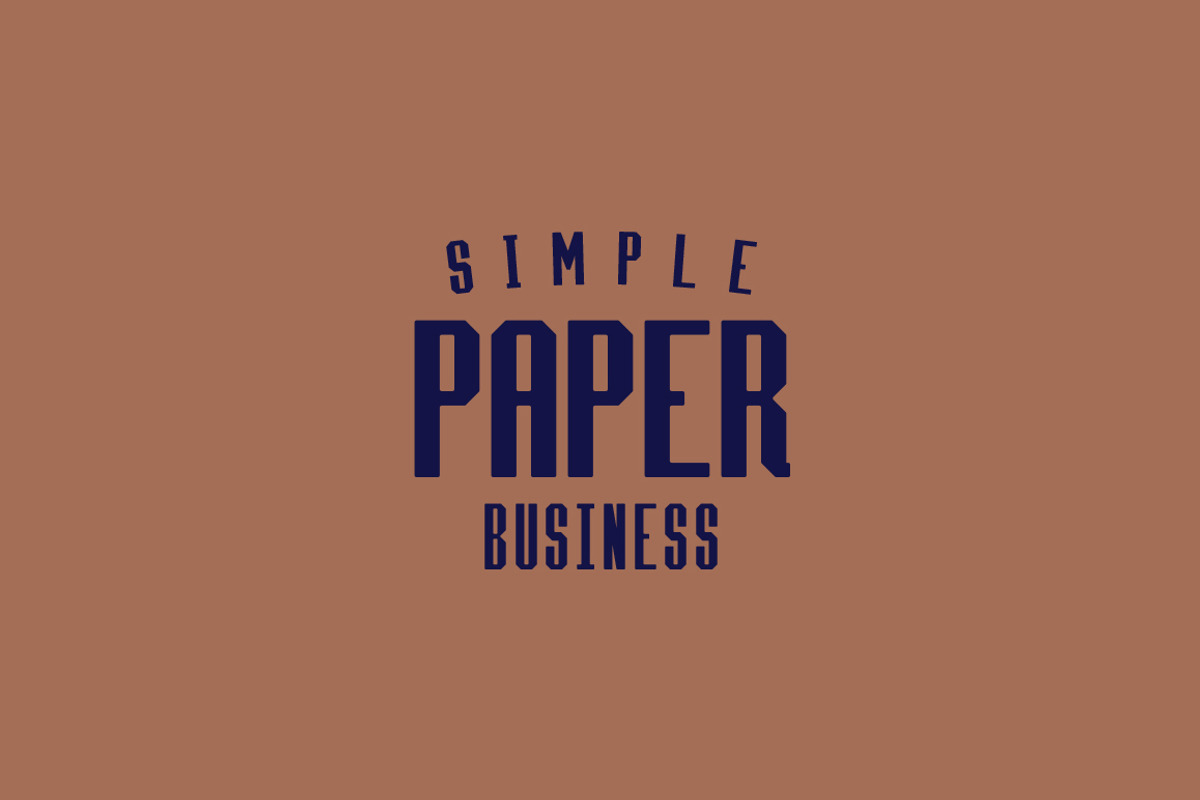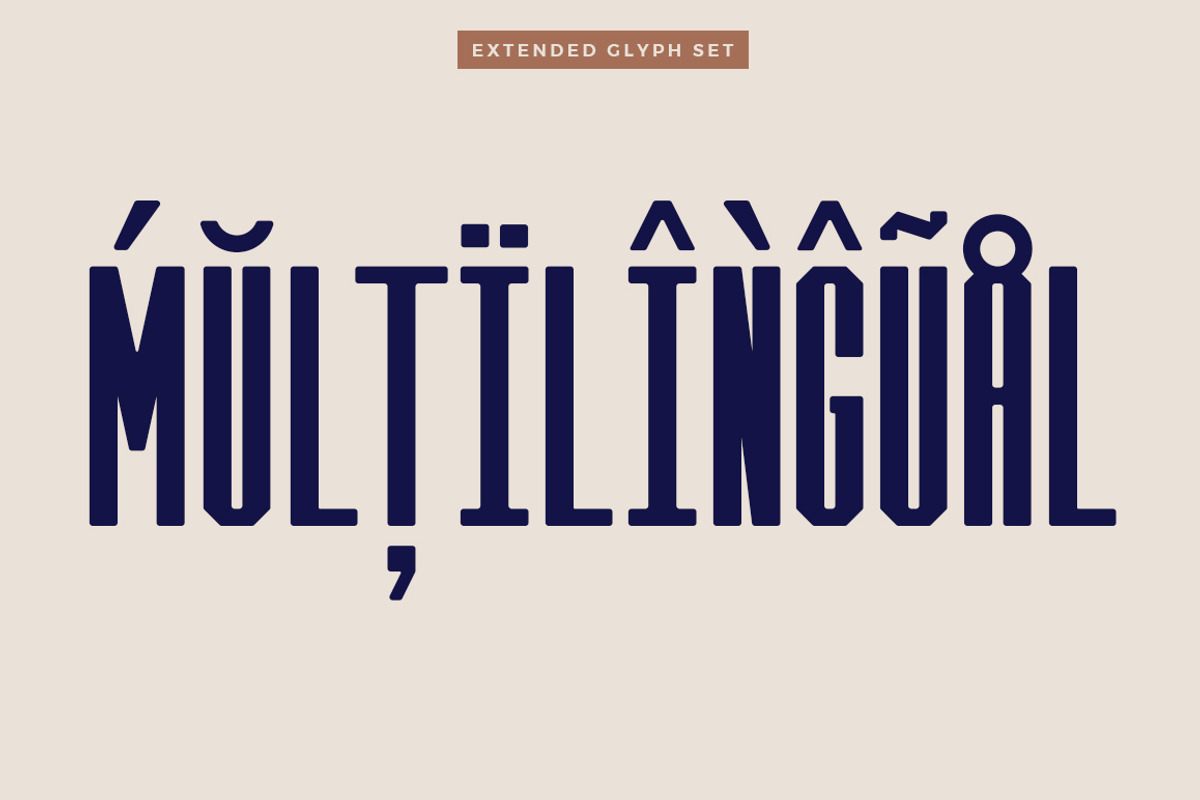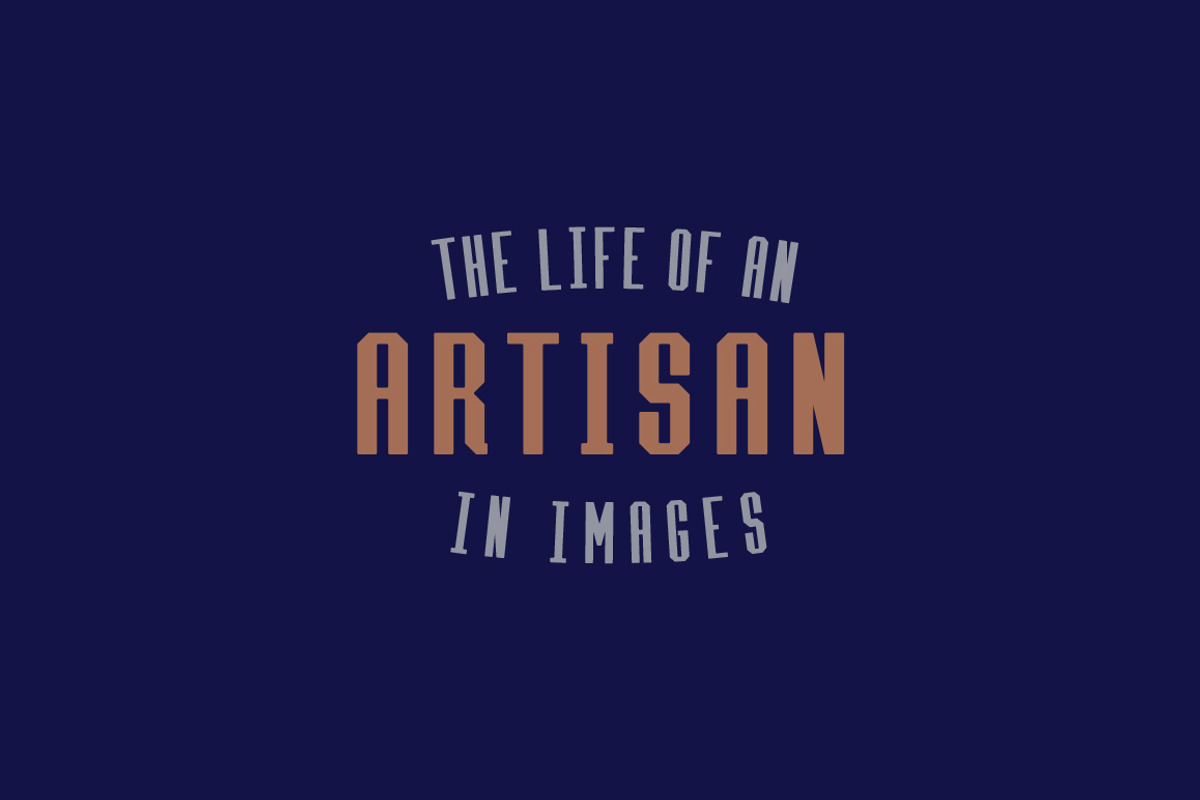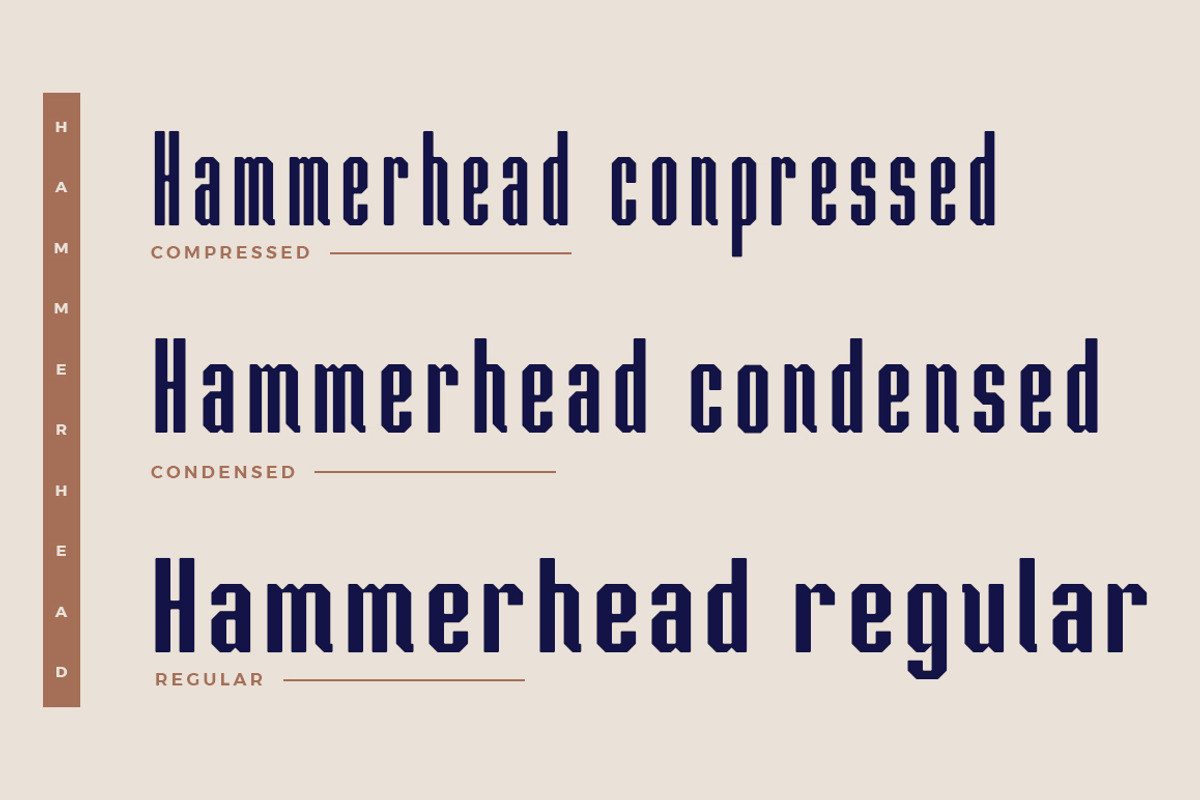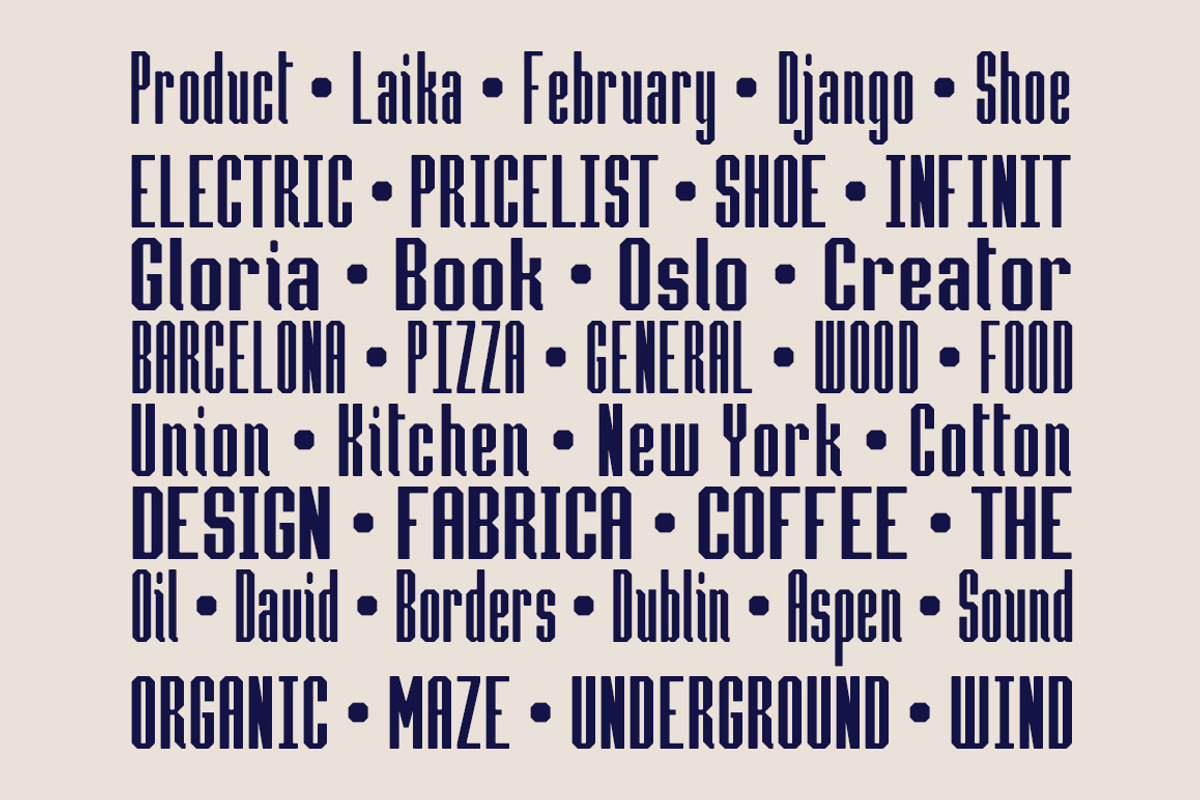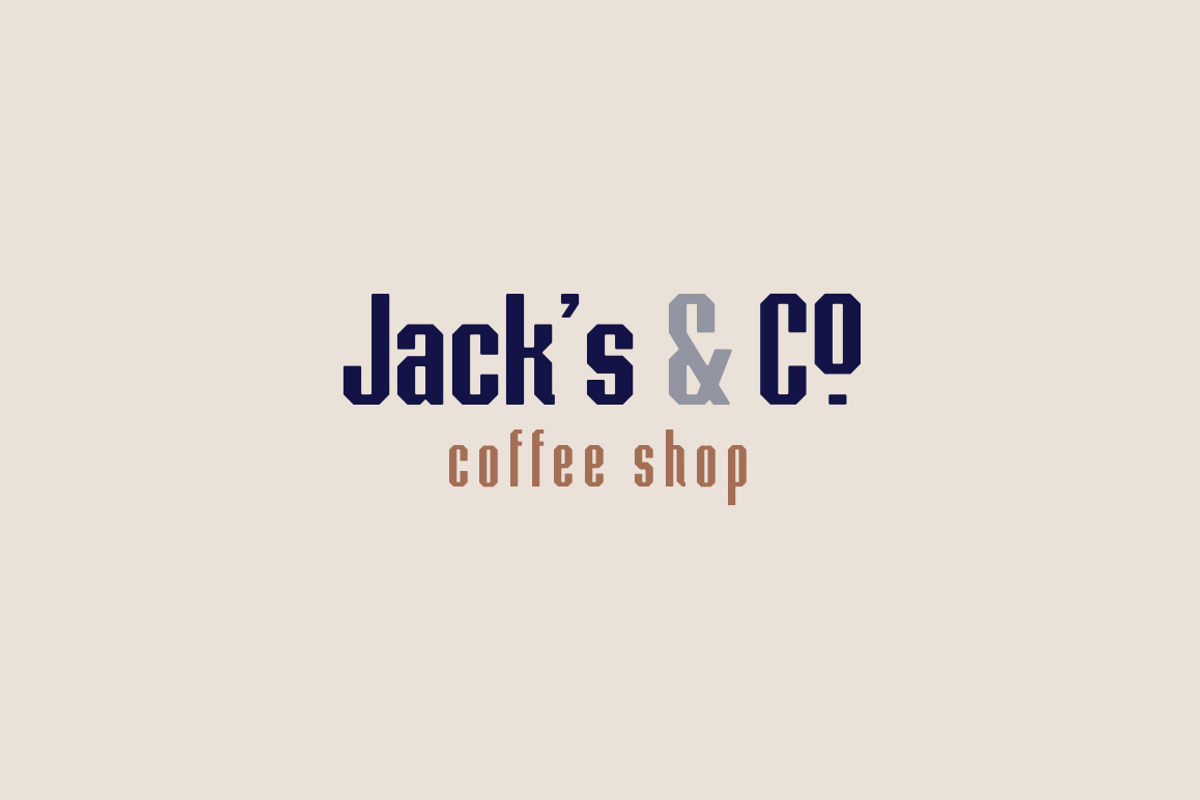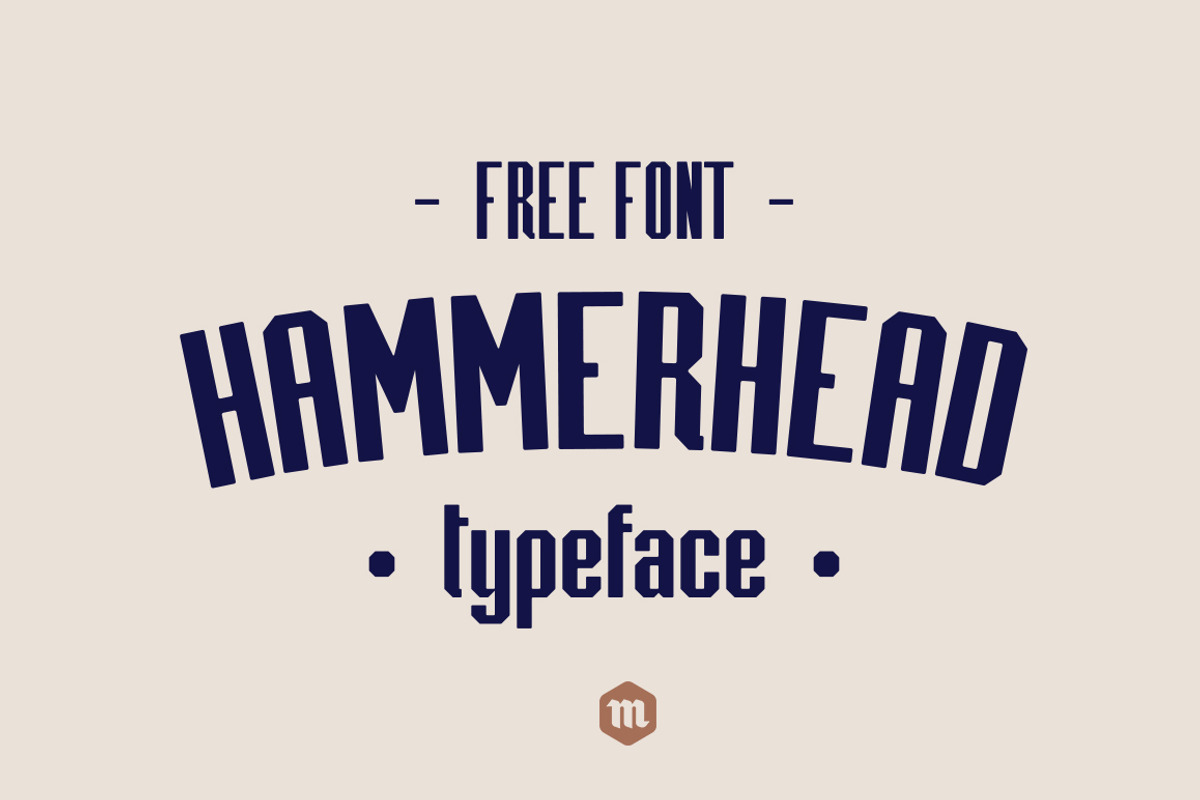
Hammerhead Typeface | Font
HAMMERHEAD is a modern, clean sans serif font family with a vintage touch. Hammerhead has three weights, Hammerhead Compressed, Condensed and Regular, with simple, bold letterforms, straight lines and angled finials. Each weight has 252 glyphs, an uppercase and lowercase alphabet and extensive Latin script support.Hammerhead family provides a wide range of applications, but is best for vintage inspired logo designs, badge design or clothing design and can also be used for block text or occasional text.
Hammerhead Compressed
Hammerhead Condensed FREE
Extensive Latin script language support
Upper and lowercase font